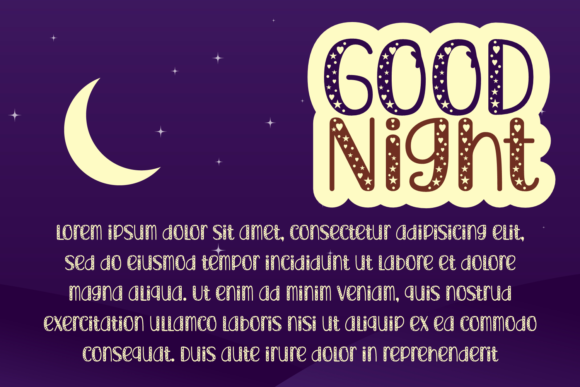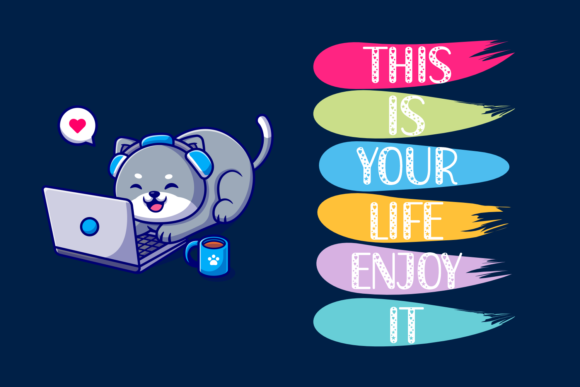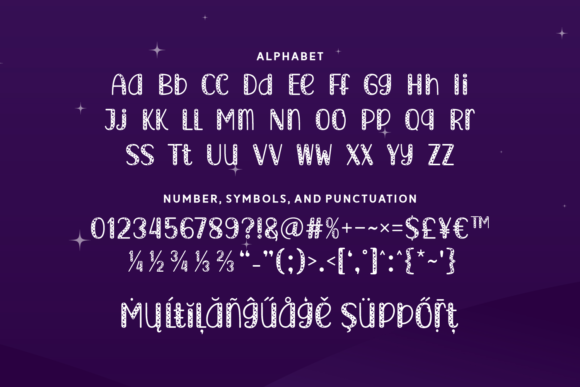
Introduction to Astro Love Font
Astro Love is a very out-of-space font.
This decorative and playful font features tall characters with a cartoon-inspired look You can see pretty stars, hearts, and dots inside the font’s characters set.